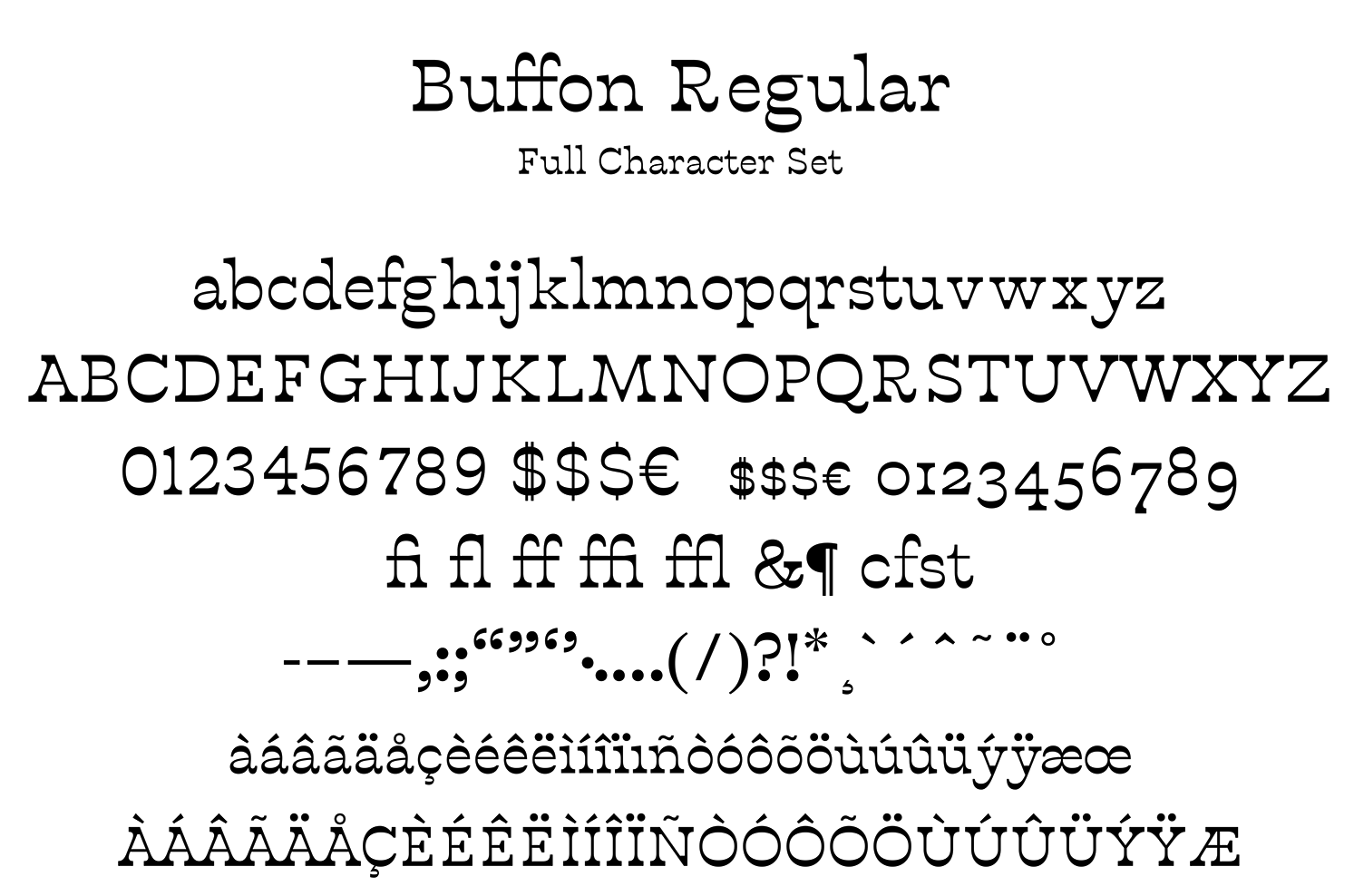
Dave Coleman
Dave Coleman is a type designer and lettering artist in Sydney, australia. He is involved in The Australian Graphic Supply Co, a design studio that began in Sydney, launched in Ovideo, Spain, and is currently operating out of the Blue Mountains, Australia. It is run by Dave and Laura Coleman. During a summer course called Type@Paris (2015), Dave Coleman created the mischievous typeface Buffon that is characterized by reversed (Italian) contrast---the horizontal strokes are thicker than the vertical ones. At Type@Paris 2016, Dave Coleman designed the typeface family Wentworth in Caption, Text and Display styles. At Future Fonts, he published the spooky wavy typeface Danse Macabre (2018) and the psychedelic bell bottom typeface Funkford (2021). |